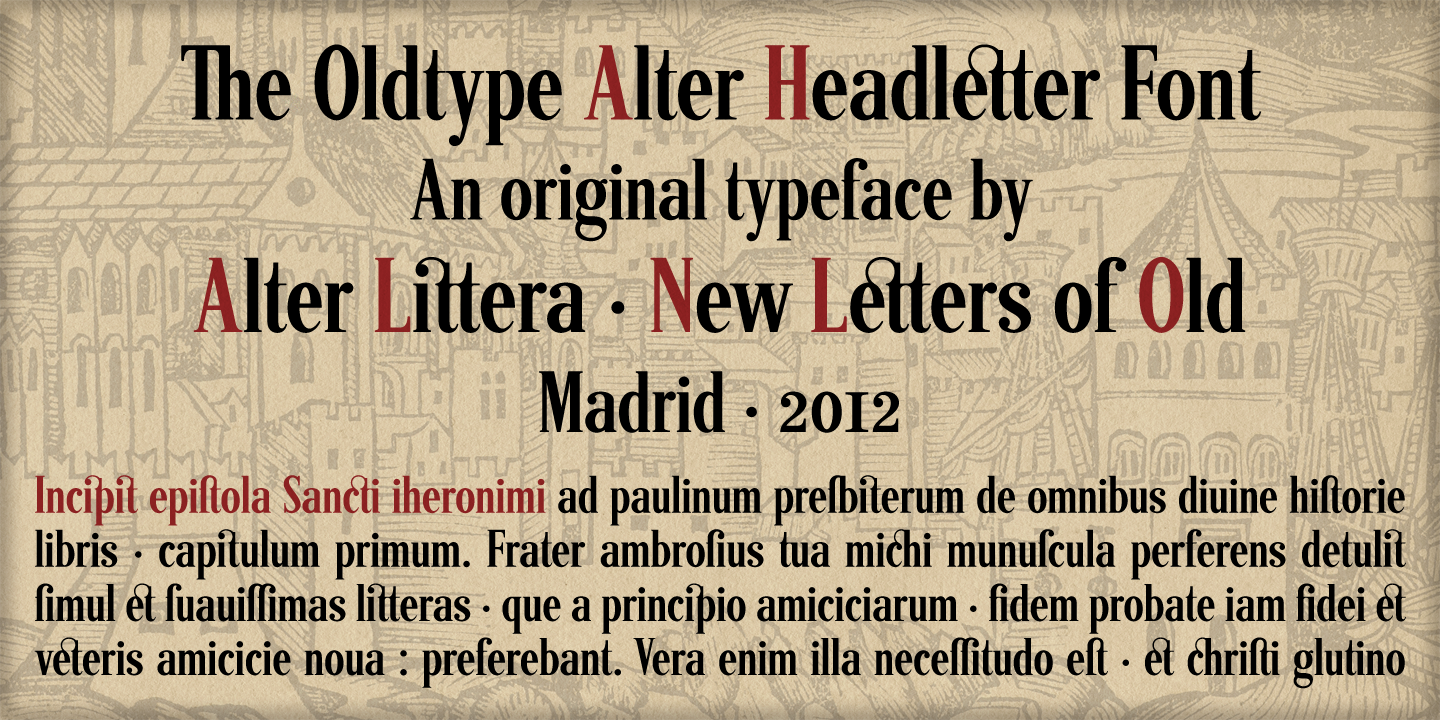
Alter Headletter Font is a bold and distinctive display typeface, perfect for designs that aim to convey a sense of modern impact, a unique artistic edge, or a powerful, eye-catching presence, often with a slightly unconventional or altered feel. Its unique forms, which might feature exaggerated serifs, unusual angles, or a strong, almost architectural structure, make it an excellent choice for headlines, branding for innovative companies, advertising campaigns, and magazine covers. Imagine it dominating the title of a cutting-edge tech publication, providing an energetic feel for a music festival poster, or adding a quirky edge to social media content for lifestyle brands. This font is also superb for packaging design that seeks to stand out, sports branding, and any project where a memorable, expressive, and visually engaging identity is key. It doesn't just display text; it asserts a bold statement with a unique and powerful personality.
What makes Alter Headletter Font so exciting is its immediate ability to infuse text with a sense of strong individuality and a distinctive visual rhythm. It possesses a unique character that feels both robust and creatively inspired, making it incredibly effective for capturing attention and leaving a lasting impression. This distinctive blend of strength and charm makes it a fantastic choice for designers looking to create visuals that are both impactful and full of character. It’s a font that speaks with a confident and engaging voice, making it ideal for brands and content creators who want to convey creativity, boldness, and a memorable identity that truly stands apart. Its vibrant appeal can make any message feel more engaging and visually compelling.
The Alter Headletter Font family, given its often artistic and specialized nature, might not feature the extensive range of weights found in more utilitarian typefaces designed for body text. However, it typically offers different styles or complementary elements that enhance its unique aesthetic and provide creative flexibility. You might find variations such as:
Alter Headletter Regular (the primary distinctive style)
Alter Headletter Bold (for amplified impact)
Alter Headletter Outline (for a hollowed, stylized effect)
Alter Headletter Distressed (if a weathered or textured version exists)
Alter Headletter Italic/Oblique (if slanted versions are available for dynamic emphasis)